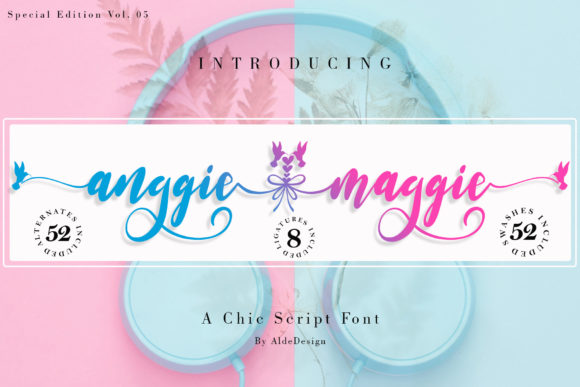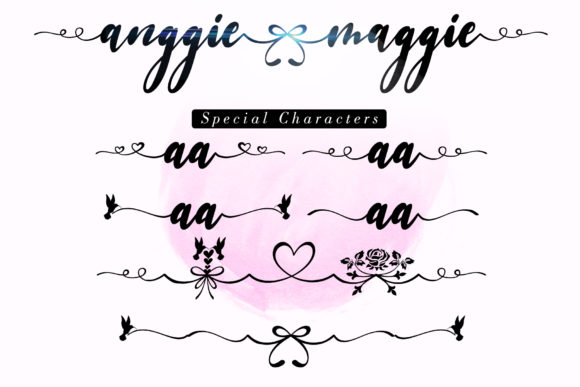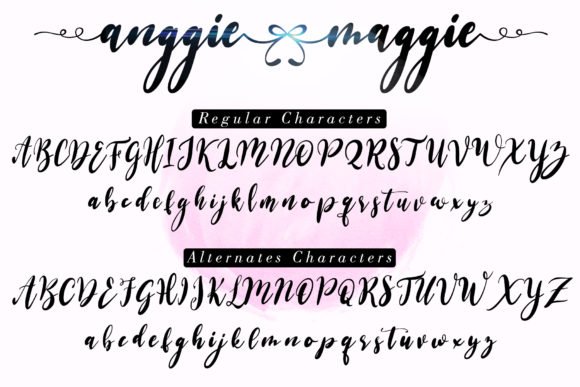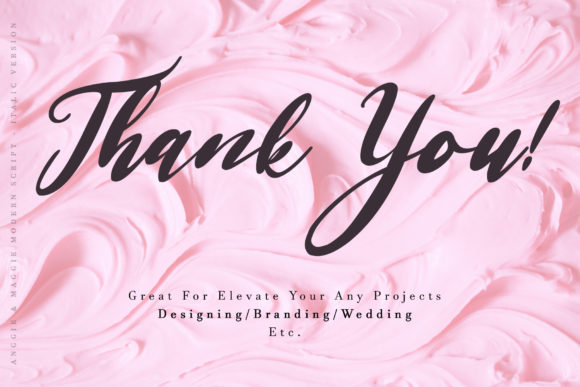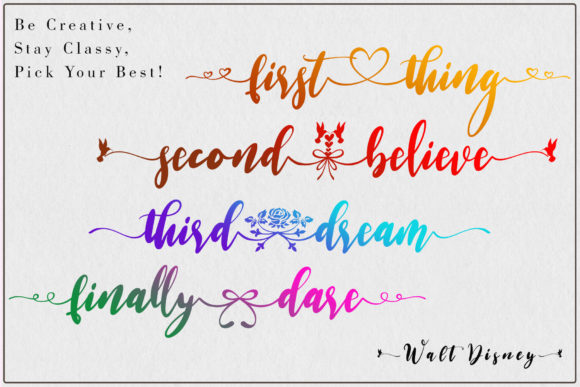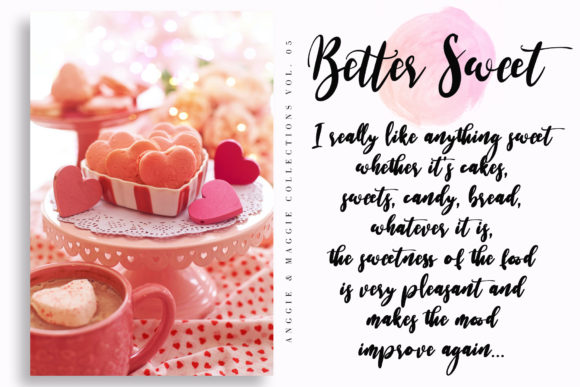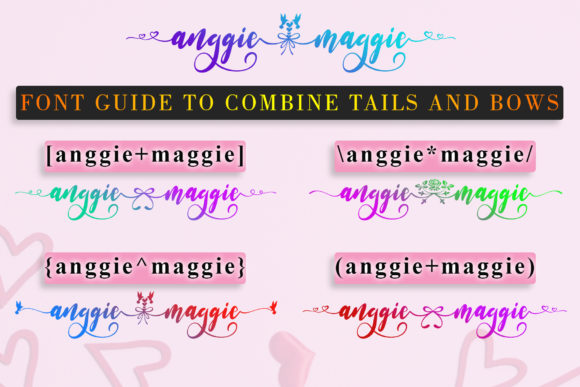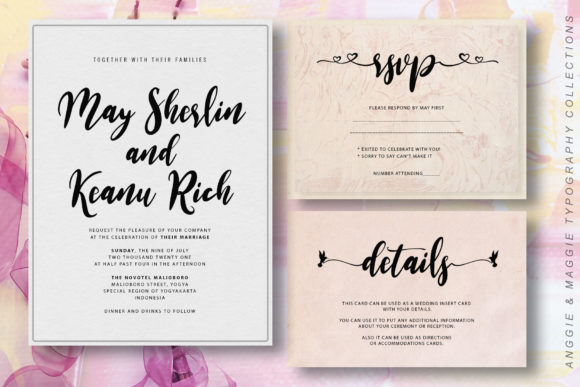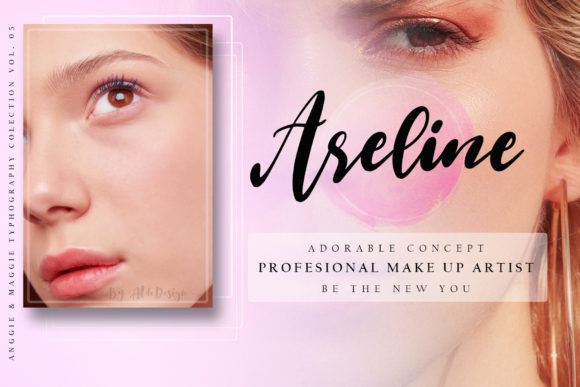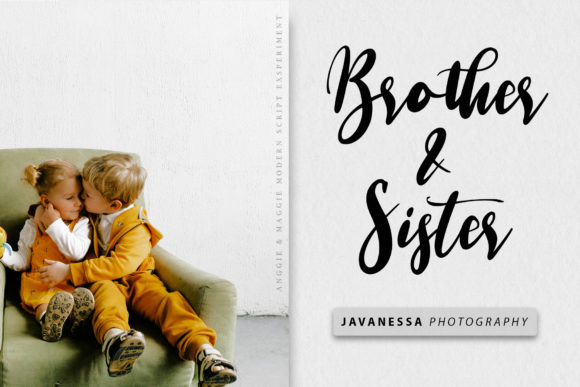
Anggie & Maggie Font
About Anggie & Maggie Font
Anggie & Maggie is a cute handwritten font. It features amazing heart-shaped swashes. Fall in love with its authentic feel and use it to create gorgeous wedding invitations, beautiful stationary art, eye-catching social media posts, and cute greeting cards.